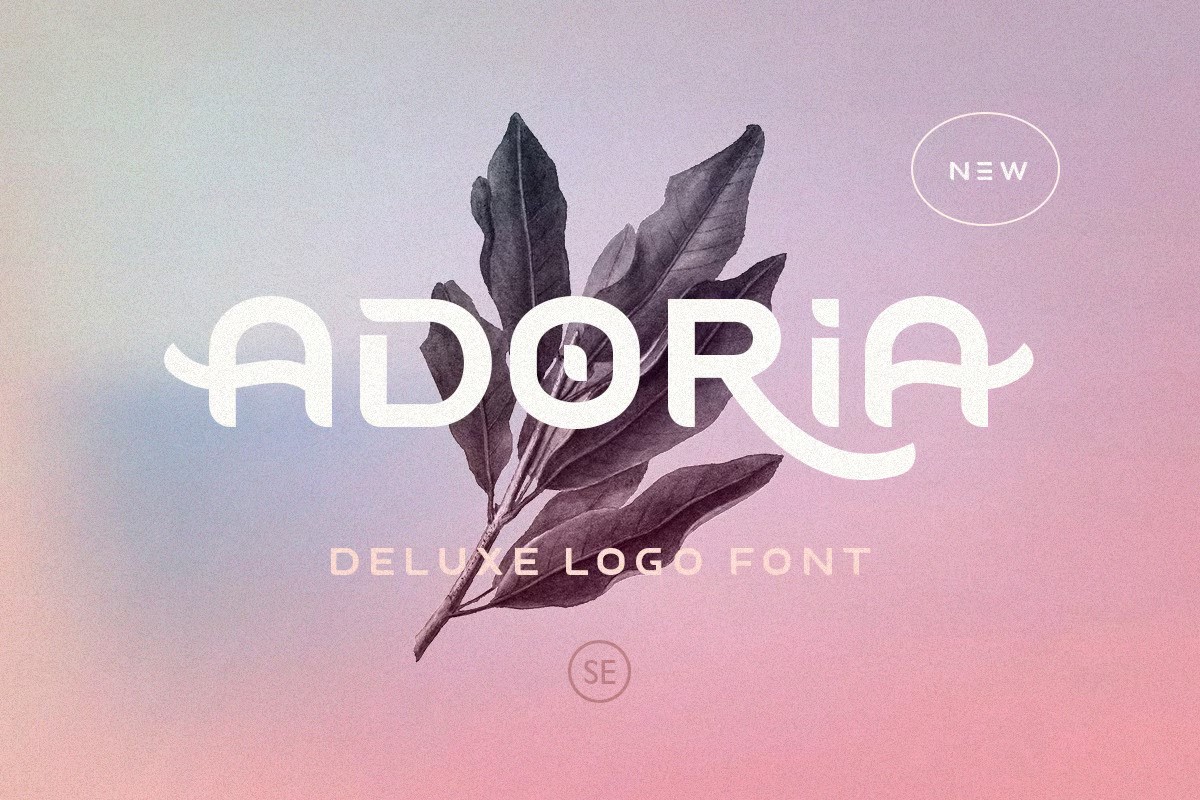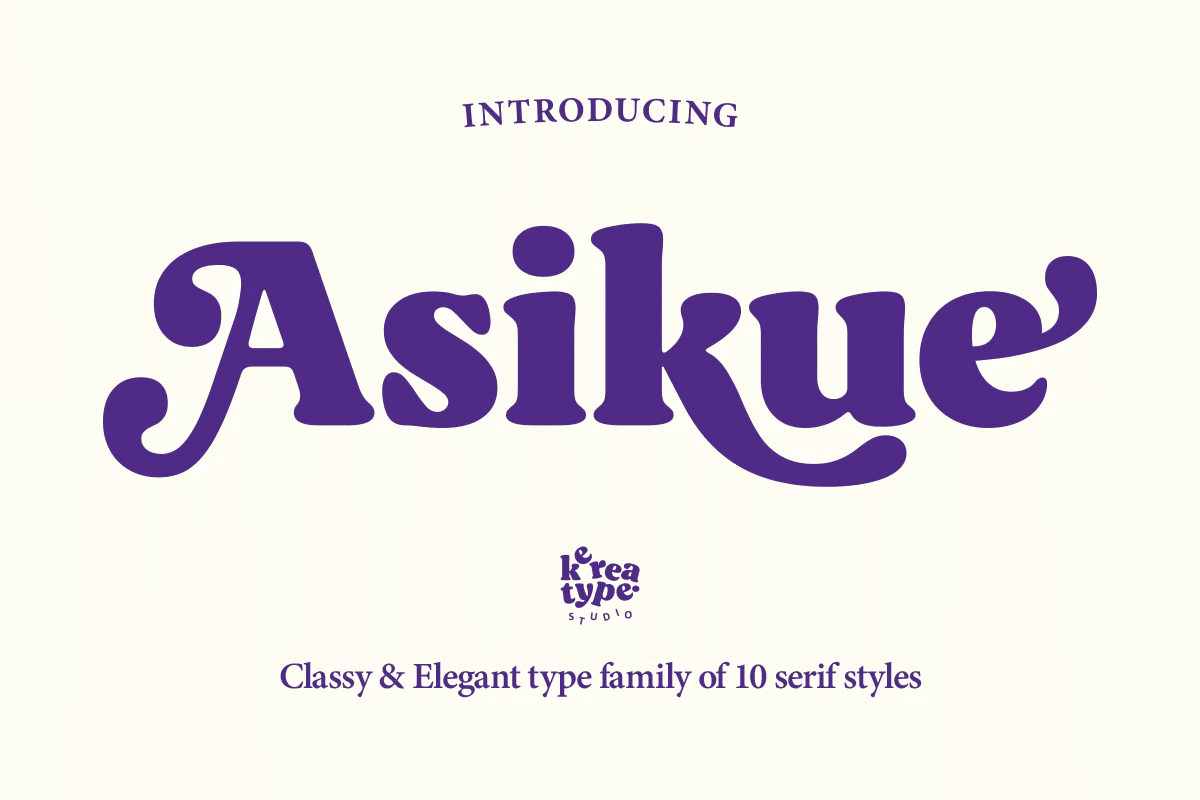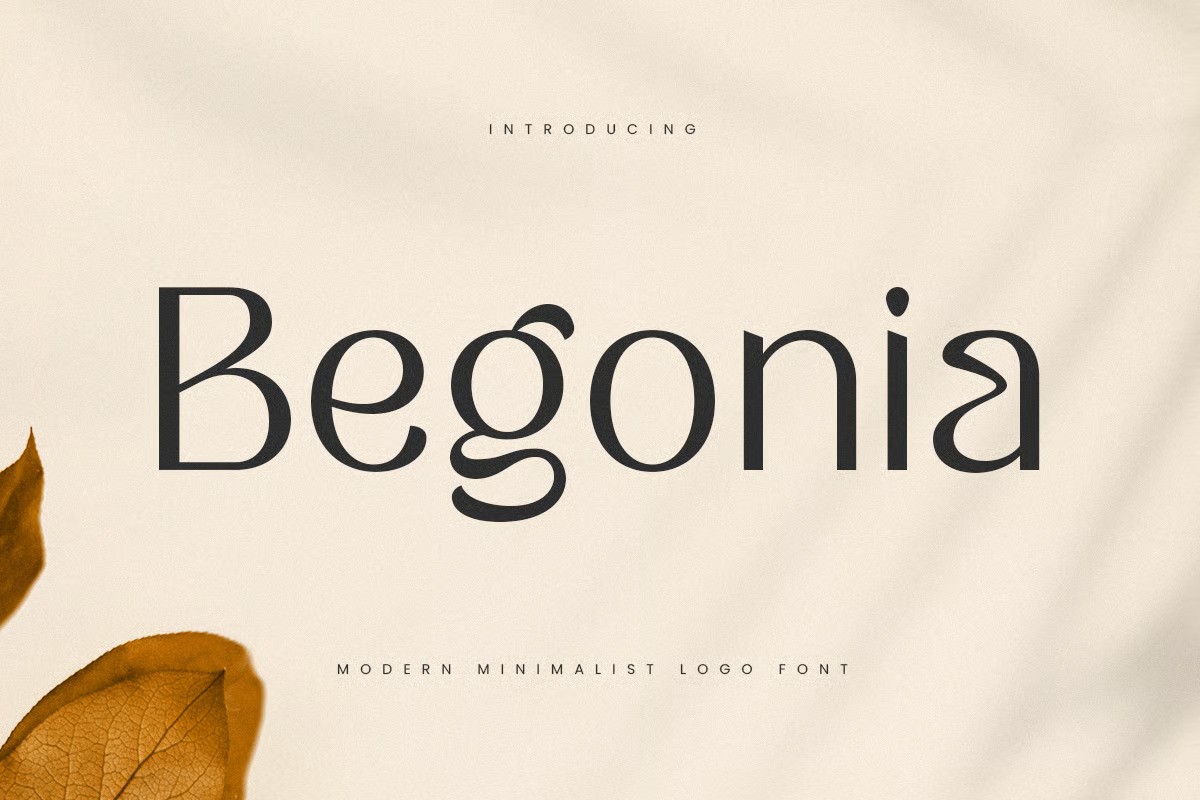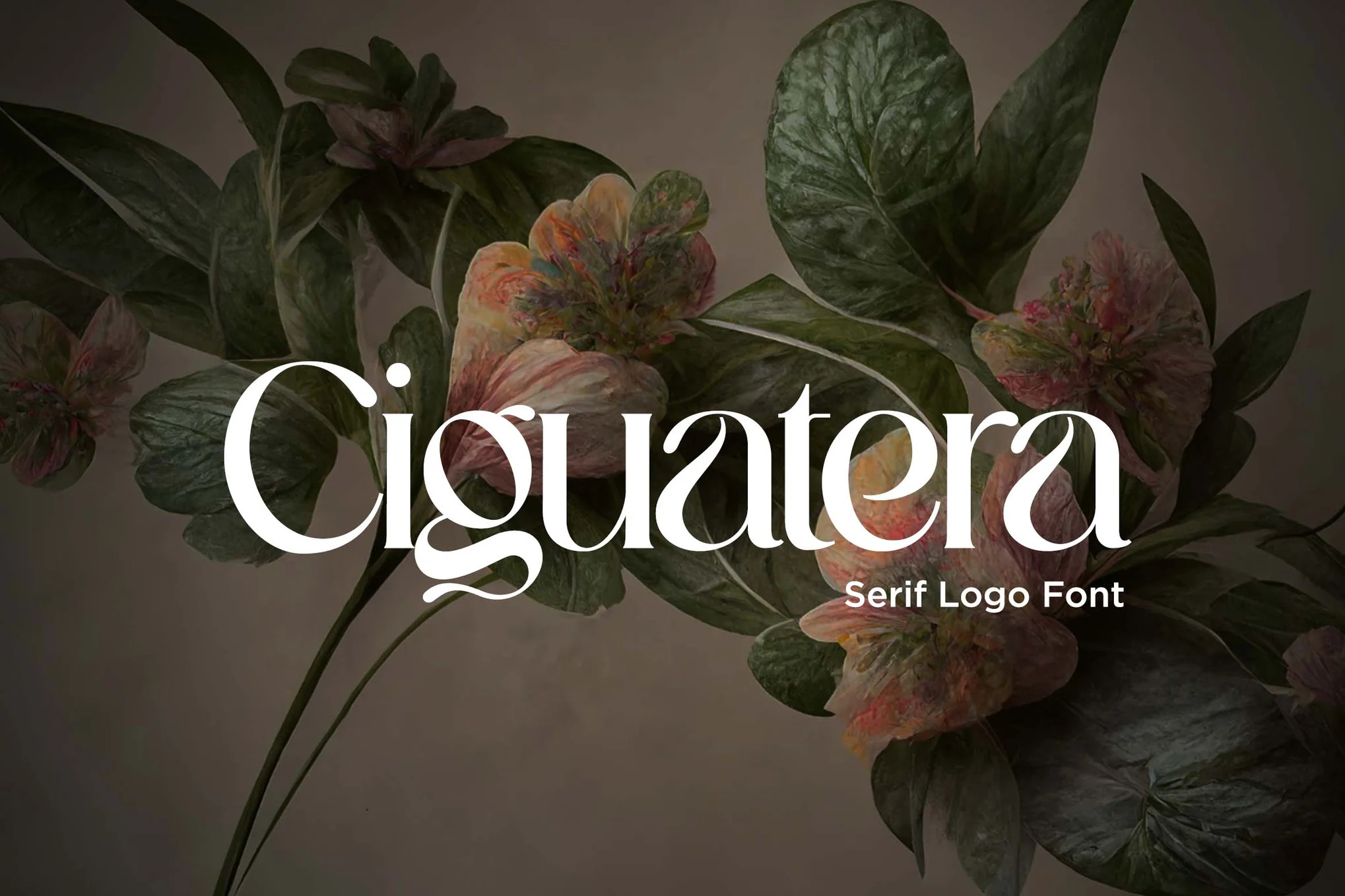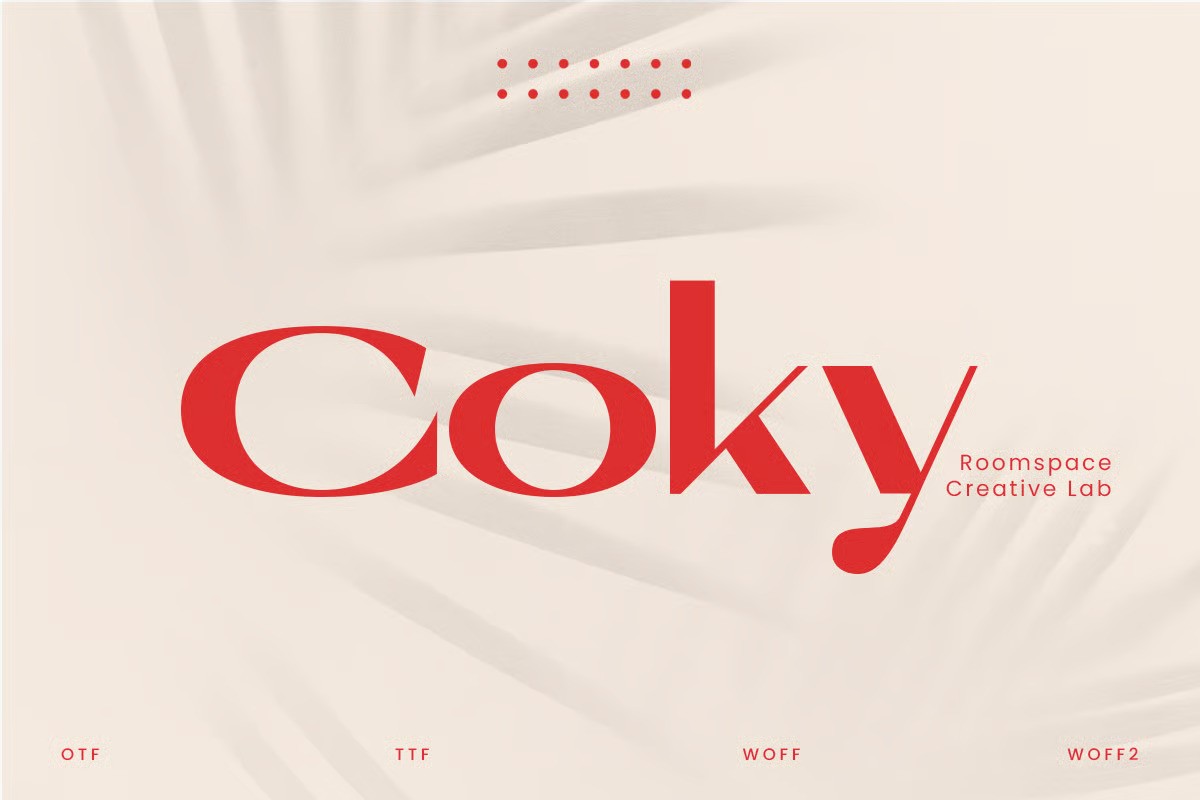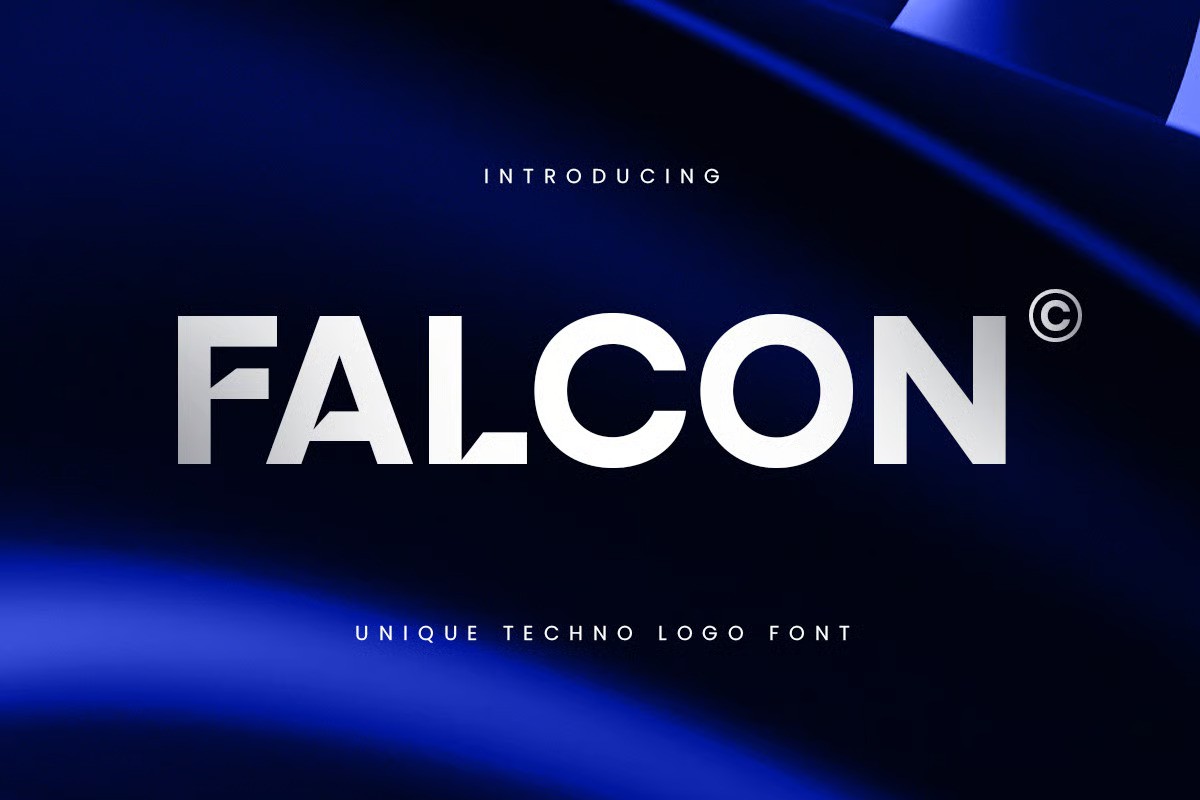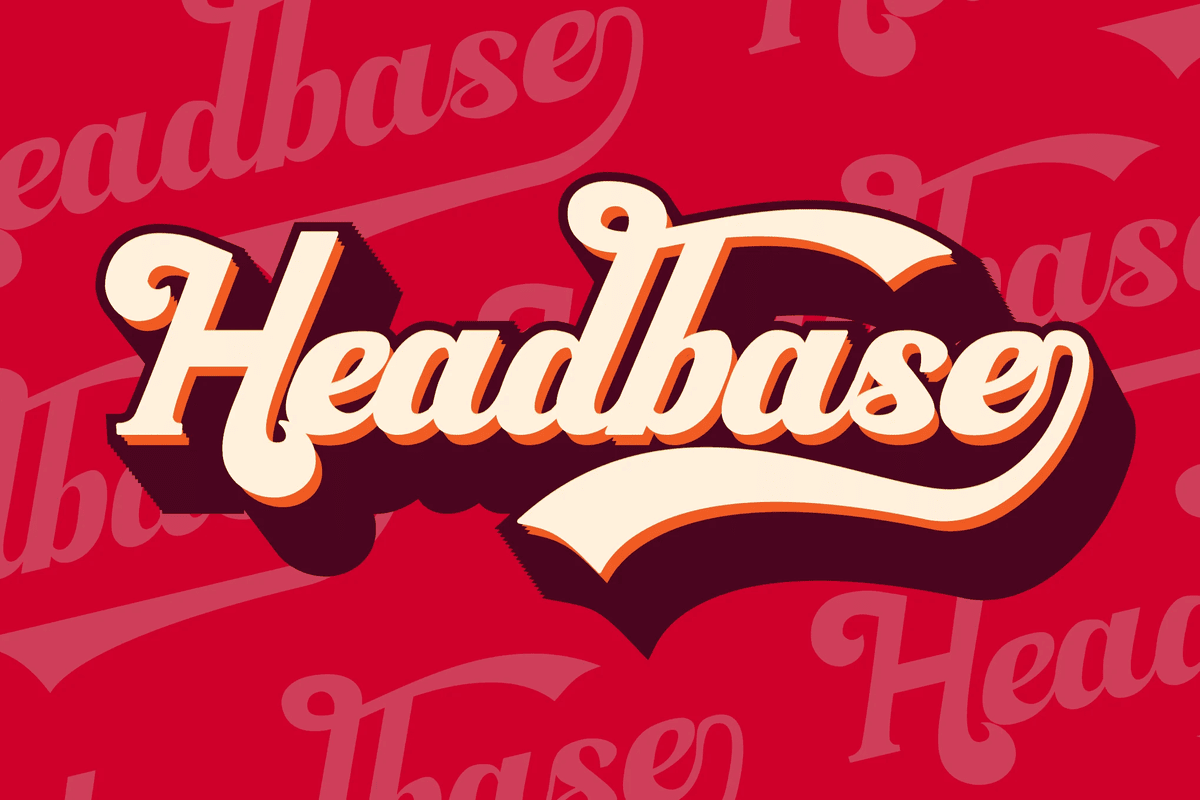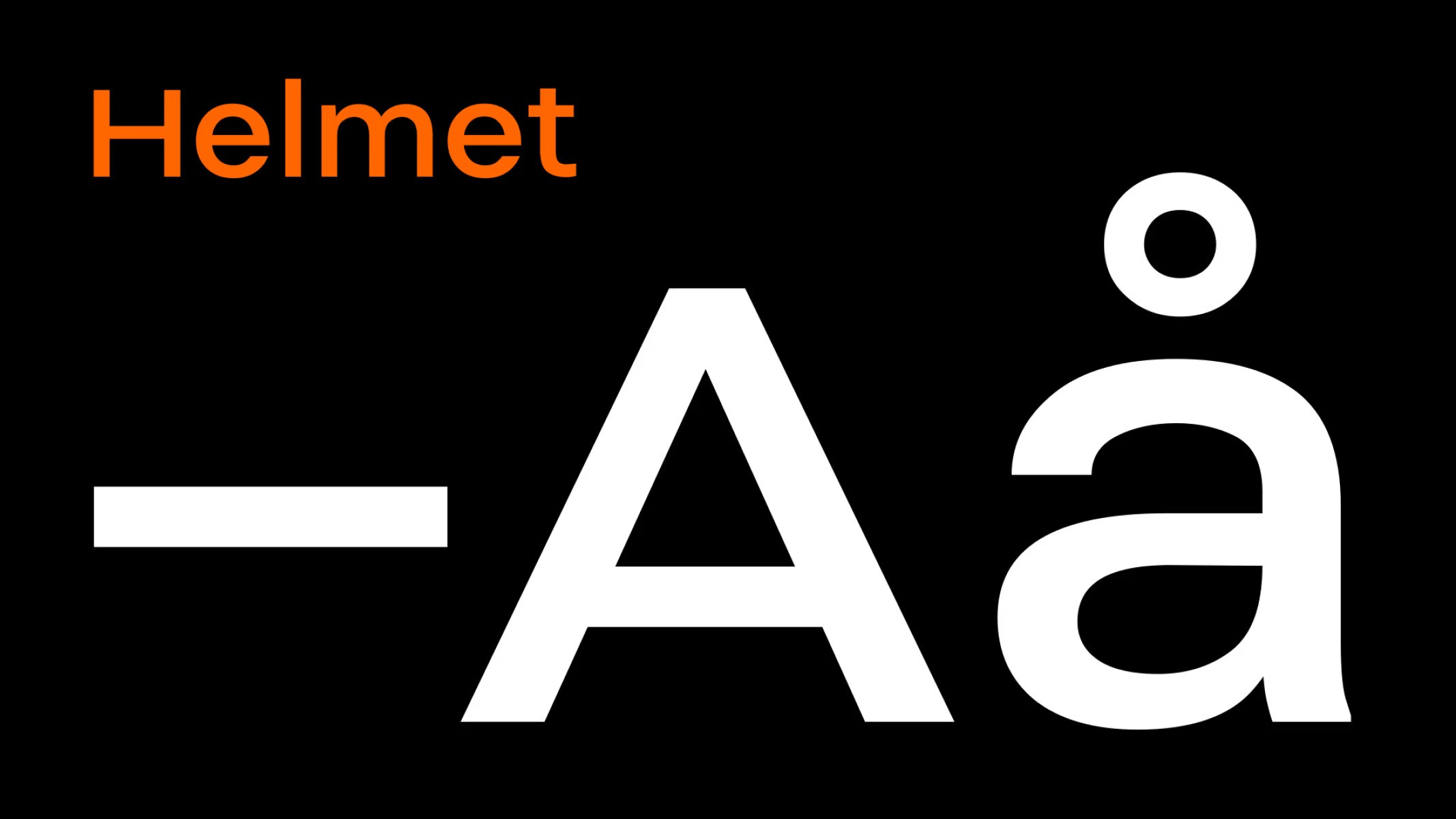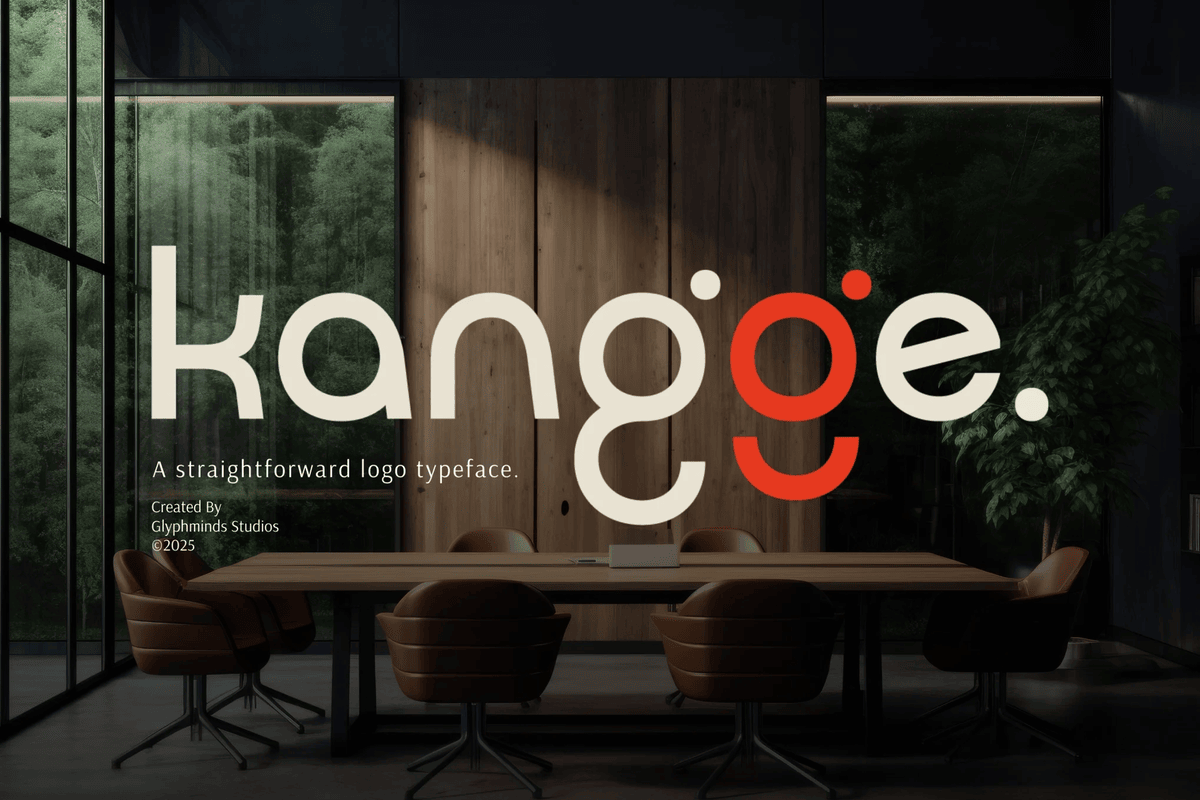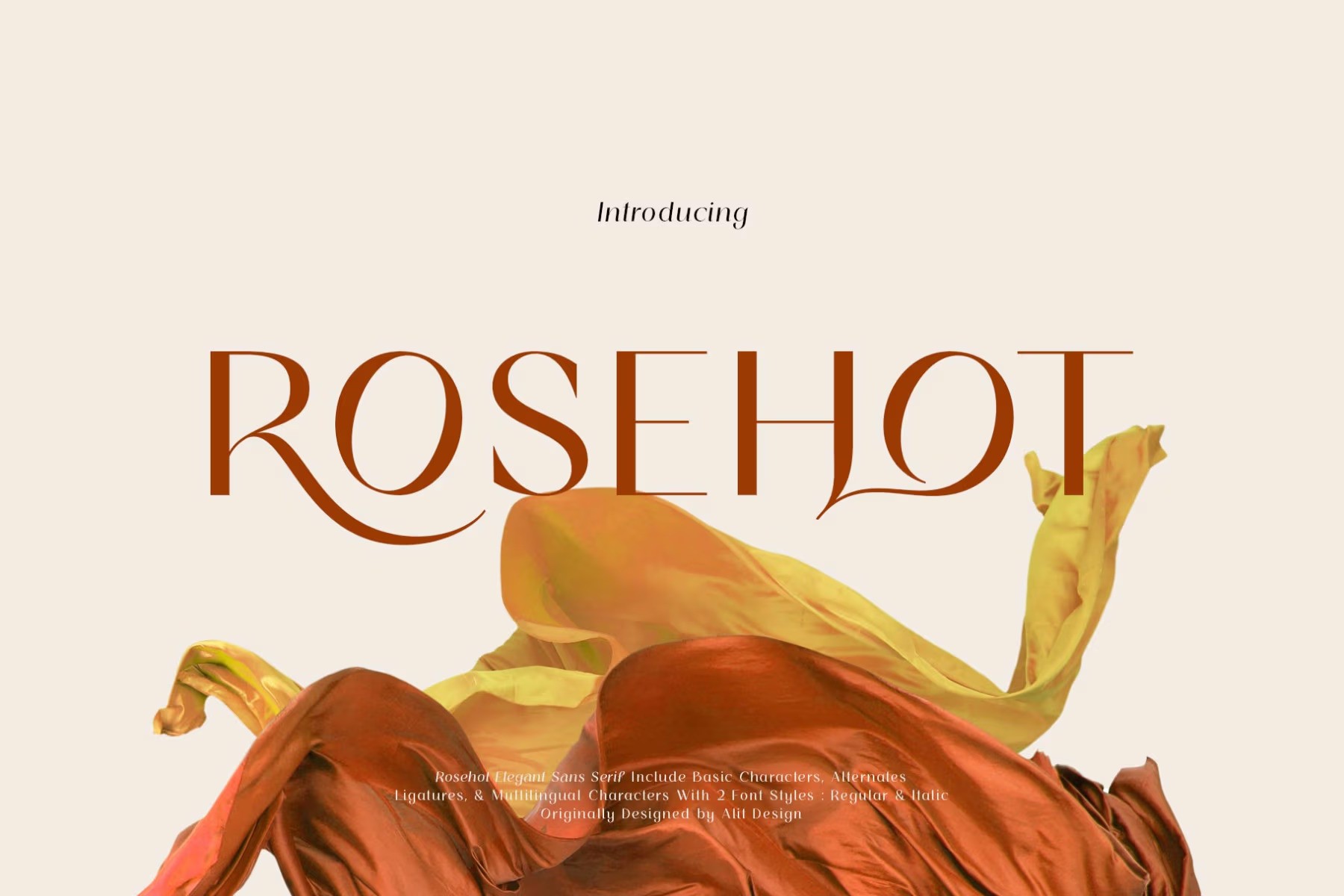
30 Logo fonts to create an extraordinary brand
Hello friends! today we present an amazing collection of logo fonts that will captivate your heart for sure.
Well-designed fonts can be a huge help in designing. Without a doubt, creating a logo from scratch is a huge challenge. However, typography still plays a key role.
Of course, there are different types of logos, both text and graphic. If we are going towards text, then these custom fonts will definitely help you.